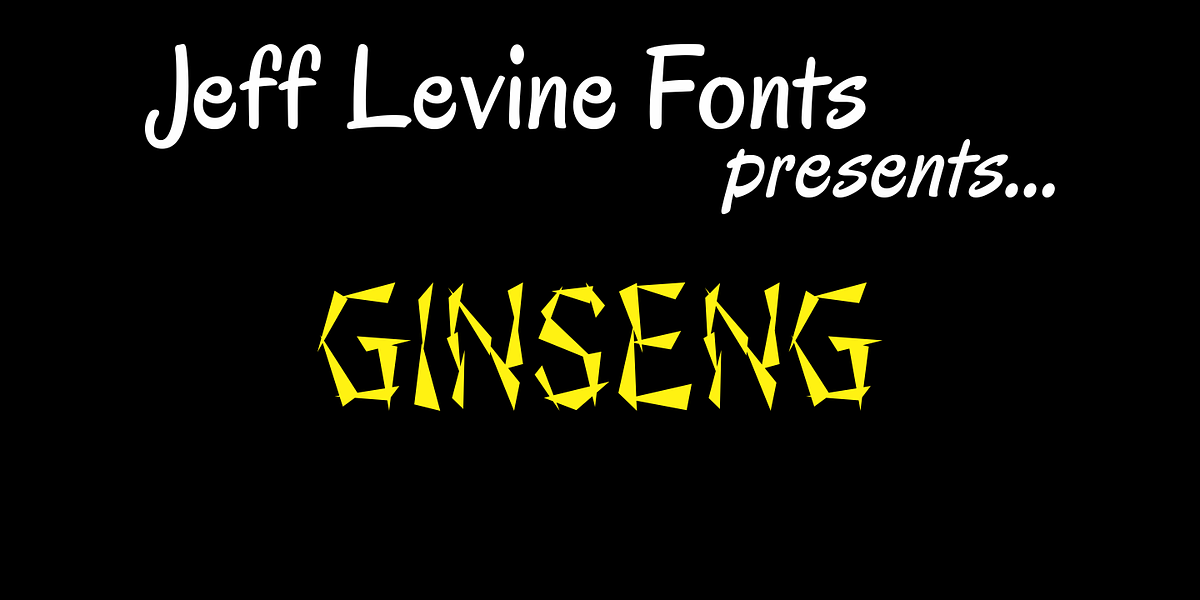
Ginseng JNL
The font was originally conceived as either electricity in motion or glass shards, but the design simply built itself into a typeface that draws influence from Asian-American faux scripts.